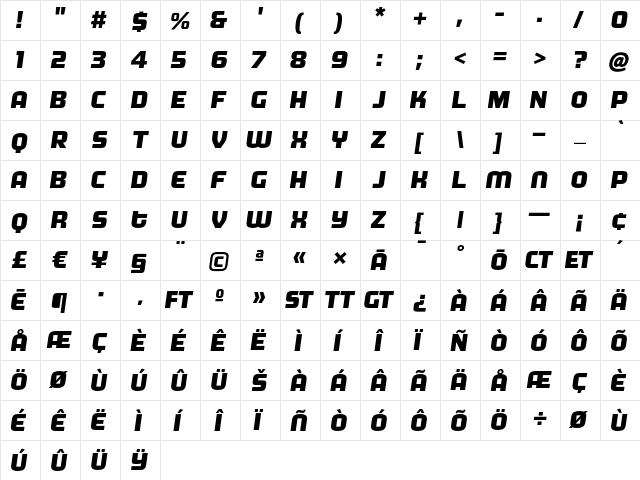
MorganBig ExtraboldItalic
Design Context for MorganBig Typeface
MorganBig takes a measured approach to typography — its balanced proportions and neutral character make it a reliable workhorse for both digital and print work. Its italic angle brings a sense of urgency and motion to the letterforms. Its bold stroke weight gives it real presence on the page.
Pro Tip: Use MorganBig for emphasis, pull quotes, and subheadings where its slanted energy can add rhythm to the layout.